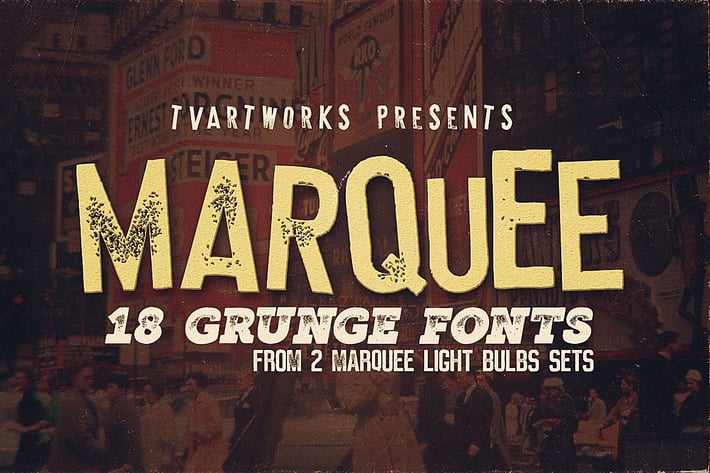
Marquee - 18 Grunge Fonts
You'll find 18 grunge style display fonts in this bundle - so if you need just grunge fonts this bundle is something for you :)